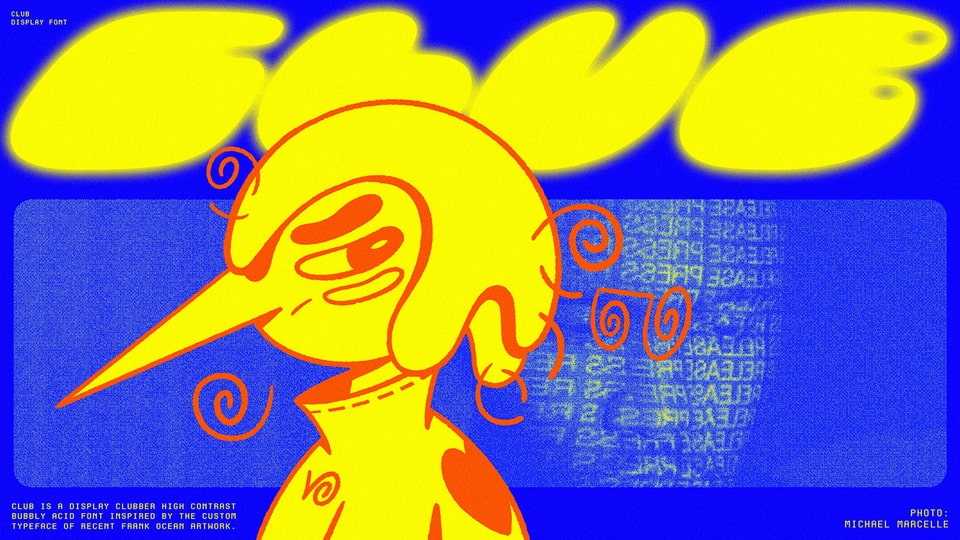
Download Club font, a display typeface—sharp, bubbly, and club-inspired—developed drawing inspiration from the typography work created by Nejc Prah for Frank Ocean.